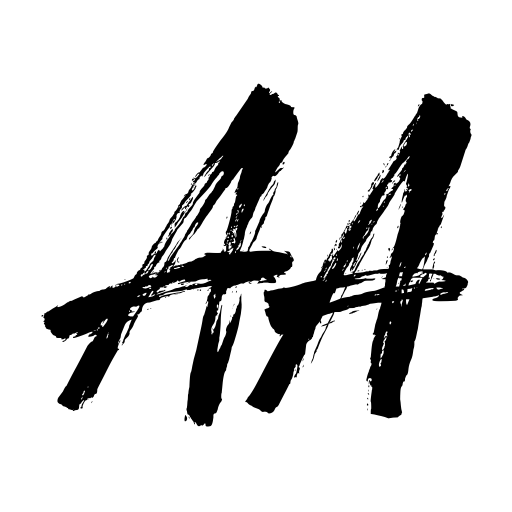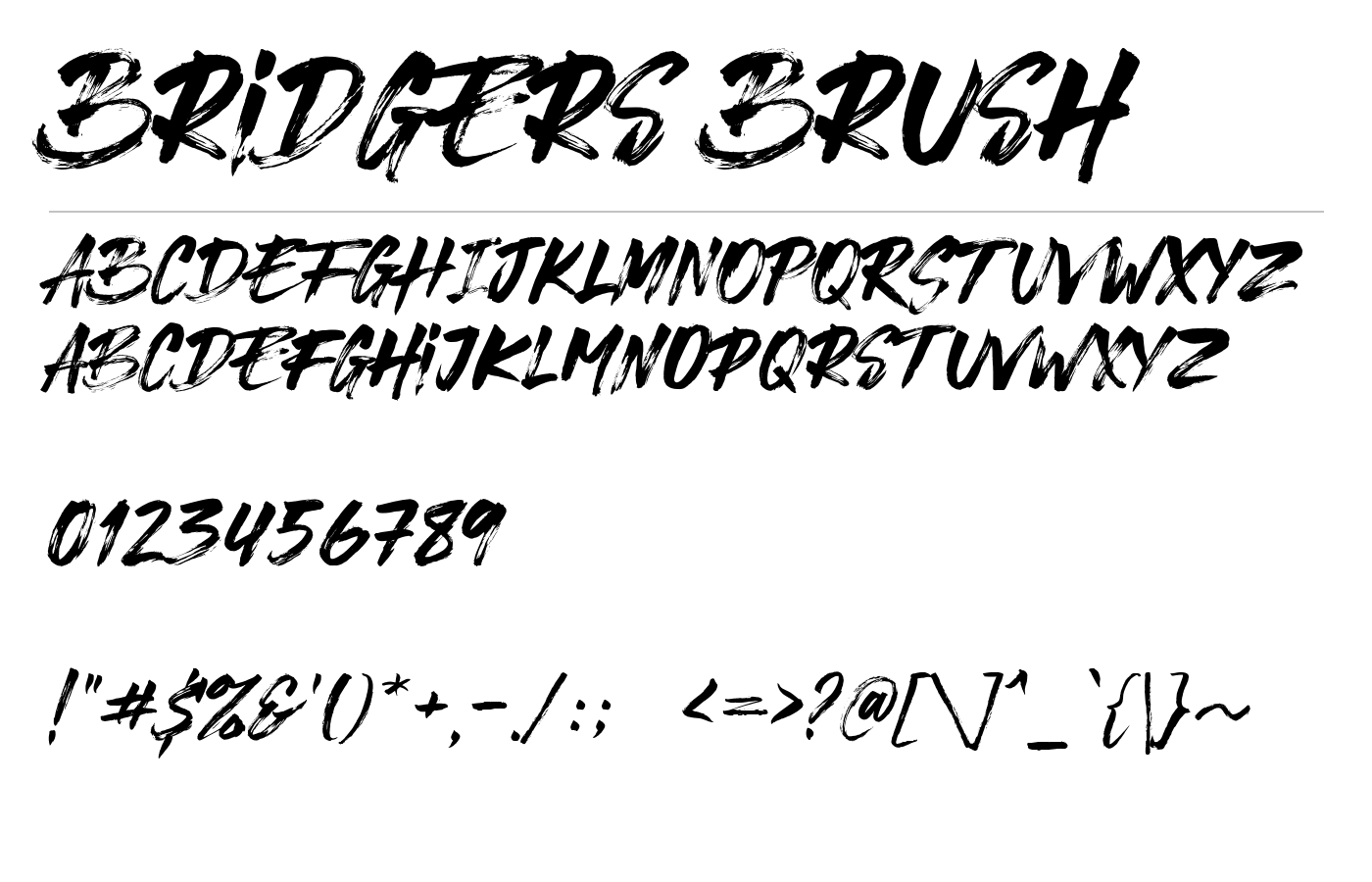
Bridgers Brush is a bold, dynamic brush script font with a strong hand-painted feel, featuring energetic, textured strokes that add a lively, artistic touch to any design. Its uppercase characters have a casual, expressive vibe, making it perfect for creative branding, edgy posters, and eye-catching headlines that need personality and a handcrafted look. This font works best where an informal yet impactful style is desired, such as in fashion, music, or lifestyle projects.
Bridgers Brush Font
About Bridgers Brush Font